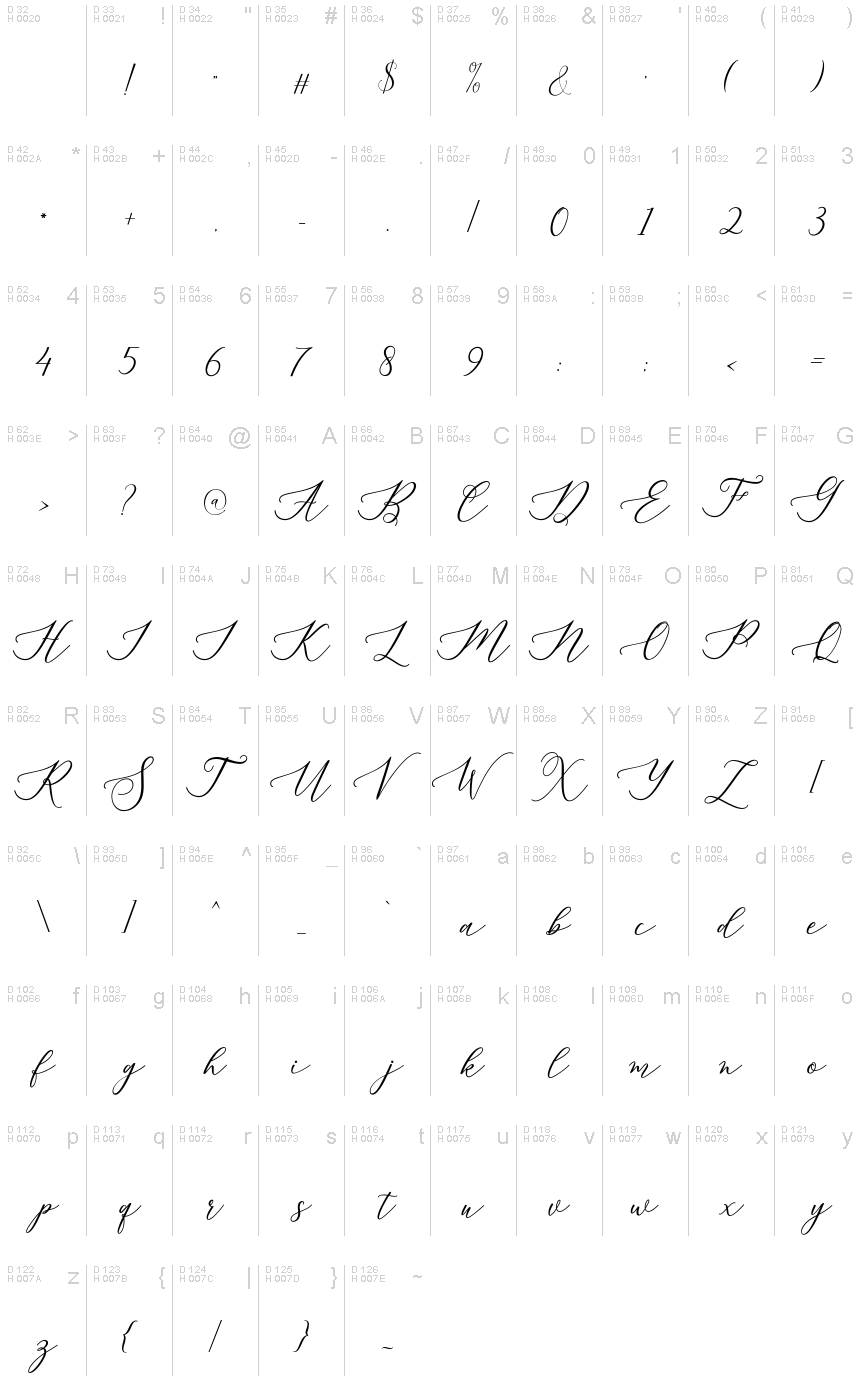
Melinda
Melinda is a captivating calligraphic font that exudes grace and elegance. Crafted by the skilled designers at Amarlettering, this light-weight font showcases a stunning cursive script with fluid, interconnected strokes. The organic, hand-drawn quality of Melinda lends it a timeless, sophisticated appeal, making it a versatile choice for a wide range of design applications.
From wedding invitations and greeting cards to branding and editorial layouts, Melinda's distinctive character adds a touch of refined sophistication to any project. Its delicate, yet legible letterforms effortlessly convey a sense of refinement and charm, making it an excellent selection for projects that require a refined, artisanal aesthetic.